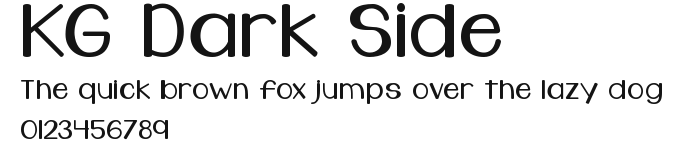
• Font Name: KG Dark Side
• Full Font Name: KG Dark Side
• Designer: Kimberly Geswein
About KG Dark Side.ttf
KG Dark Side.ttf is a modern, elegant sans-serif font designed for ultimate readability and visual harmony. Perfect for branding, headlines, web design, and print materials.